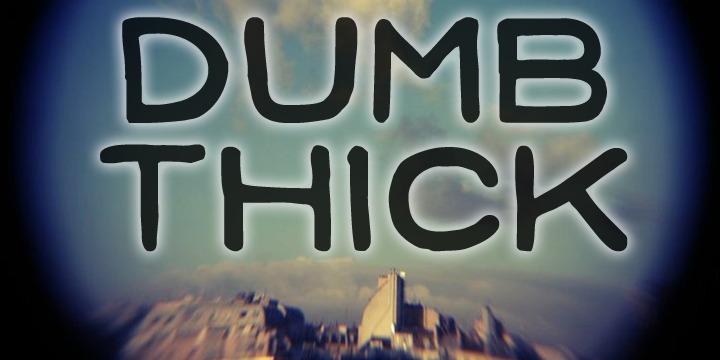
• Dumb Thick™
Dumb Thick is a font that I based on my handwriting, and which will delight you with its regularity, personality and consistency. It will without a doubt be helpful when you need to leave an impression on your crowd with a carefully selected typeface that looks equally hand-drawn and serious. Big, thick, bold letters with a unique touch… who doesn't love them?